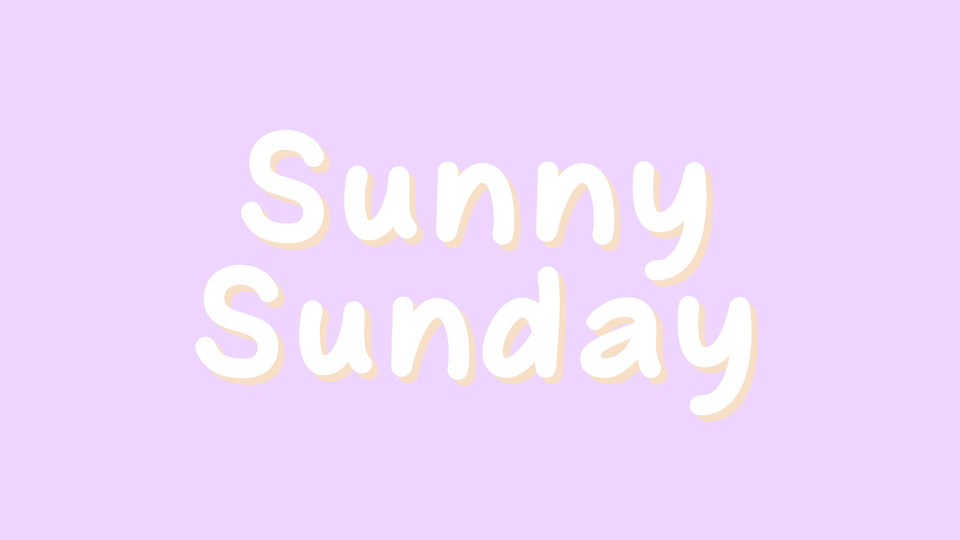
Download Sunny Sunday font, a clean and casual typeface with a hand-drawn feel. This font is a match for a comic, novel, book children, quote, menu, brochure, invitation, logo, etc.